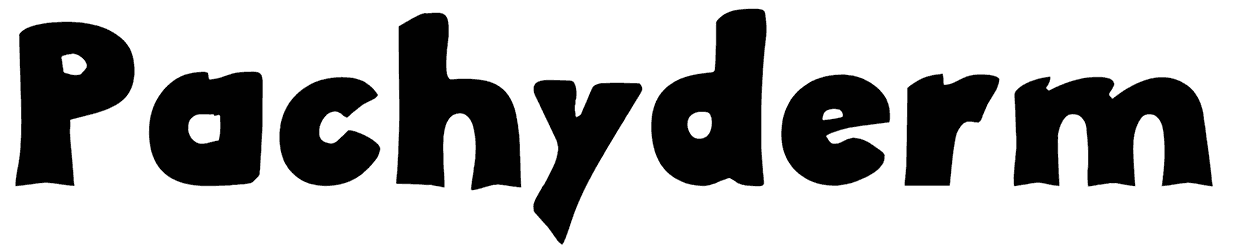
Pachyderm Font
Pachyderm is a display font that comes with full details thus conveying a sense of drama, dynamic, jauntiness, or majestic. Since its characters have a wavy style, it has an eye-catching look and easily impresses the audience. We strongly recommend all graphic artists to make charming outcomes by using this fancy font in their menus, flyers, labels, stickers, and stationaries.